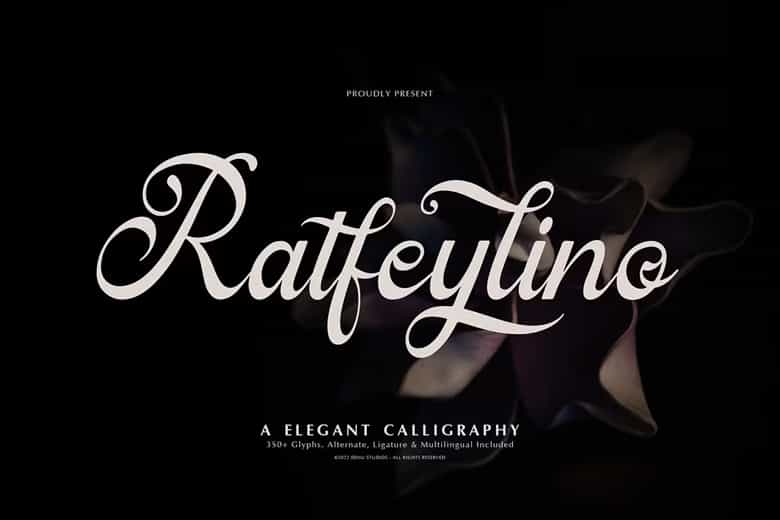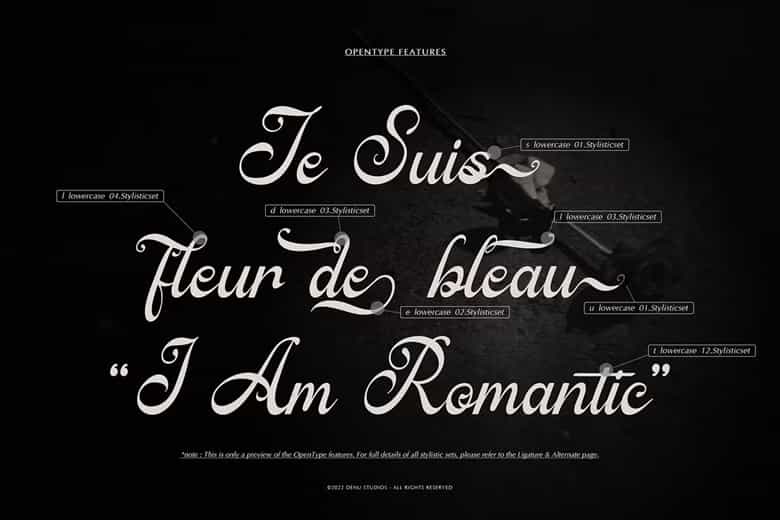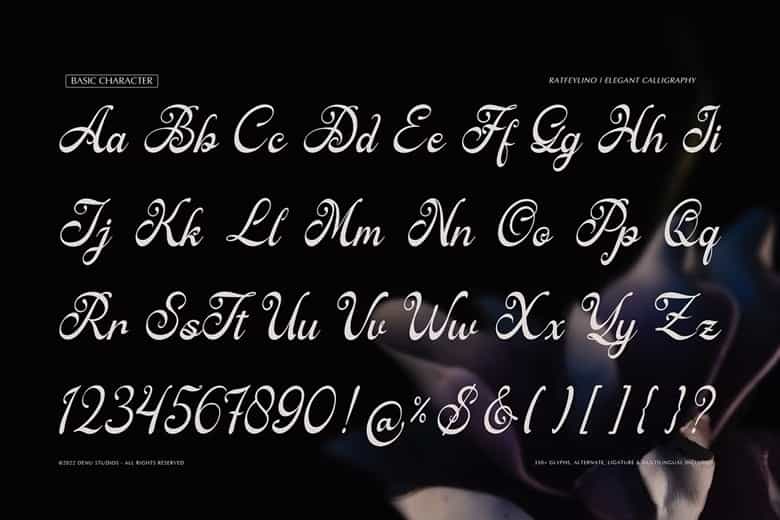
Ratfeylino is an elegant calligraphy script font, from Denustudios, It’s suitable for any projects such as: logos, branding projects, homeware designs, product packaging, mugs, quotes, posters, shopping bags, t-shirts, book covers, name card, invitation cards, greeting cards, label, special events, and all your other lovely projects that need a elegant calligraphy taste.